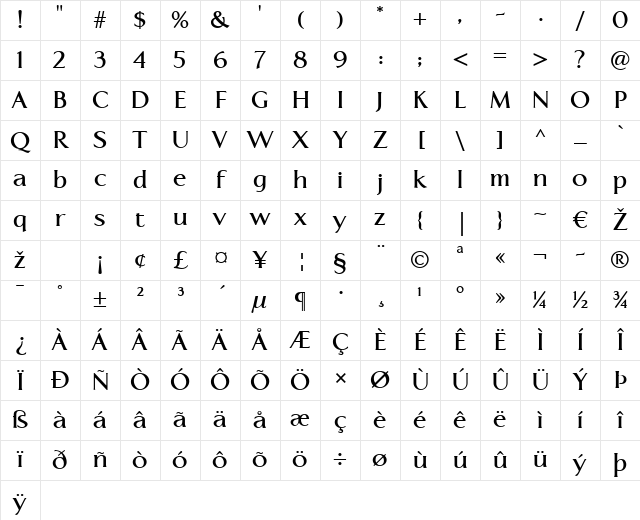
LTAperto Roman Bold
Style: Bold
Design Context for LTAperto Roman
LTAperto Roman is a composed and adaptable typeface that performs quietly and consistently across a wide range of design contexts. Its bold stroke weight gives it real presence on the page.
Pro Tip: Use LTAperto Roman in both headline and body roles to test its range before committing to a single application.